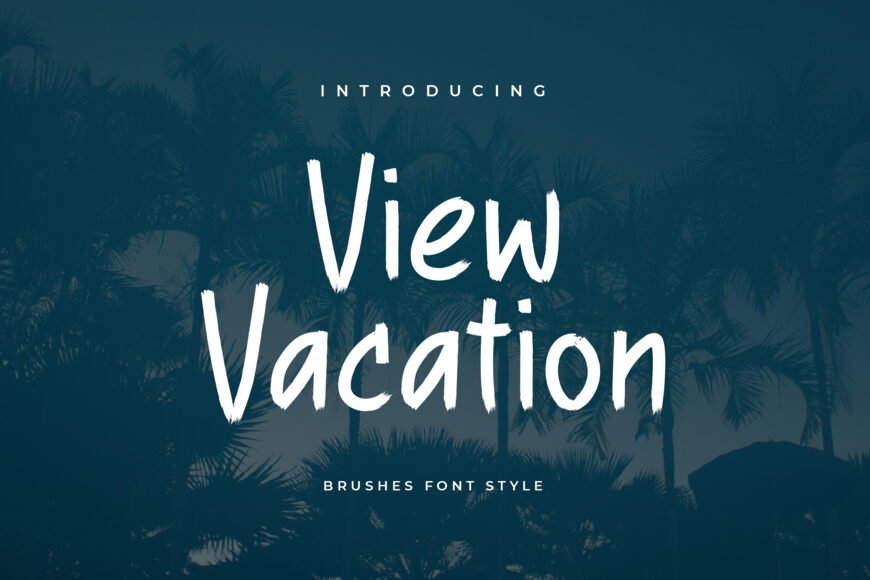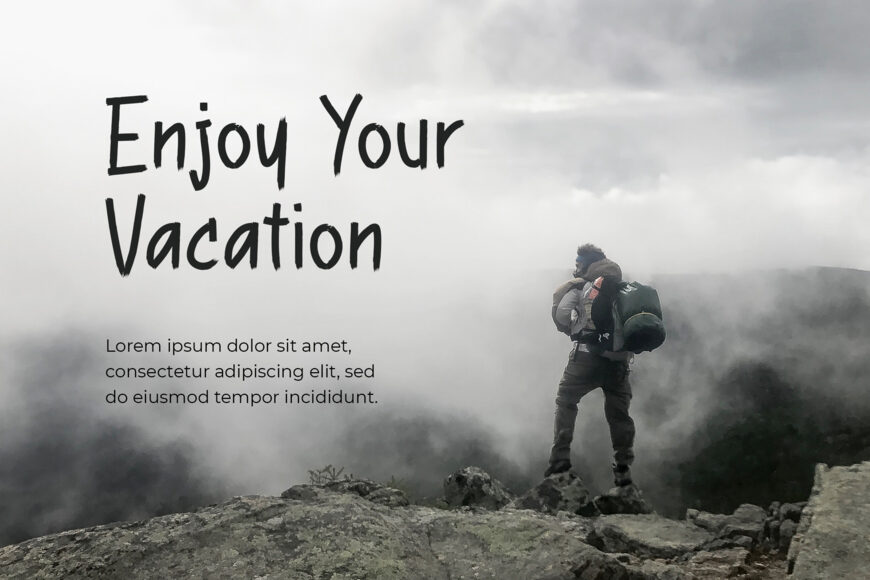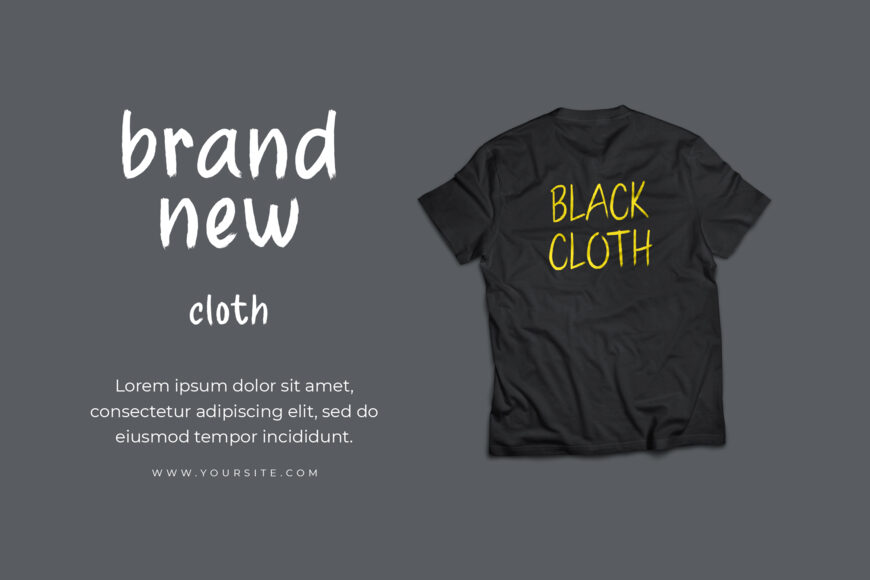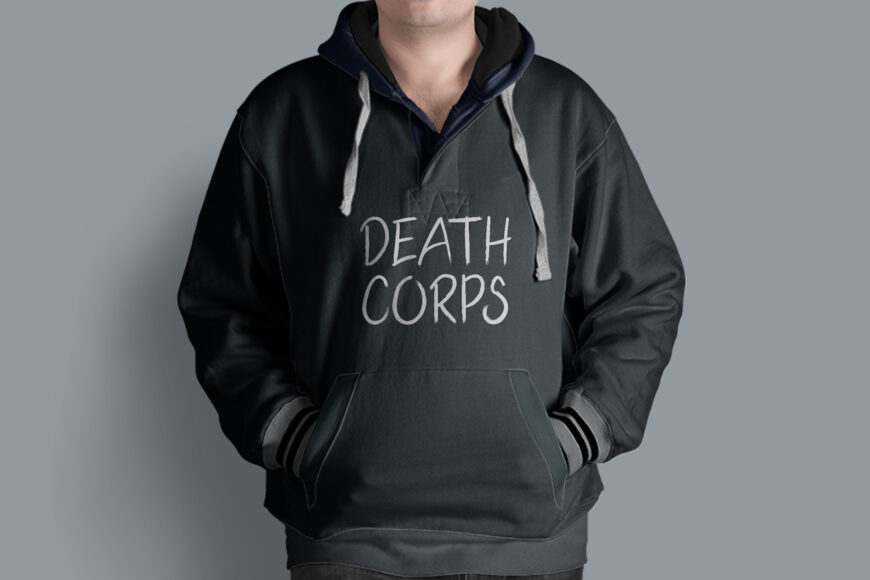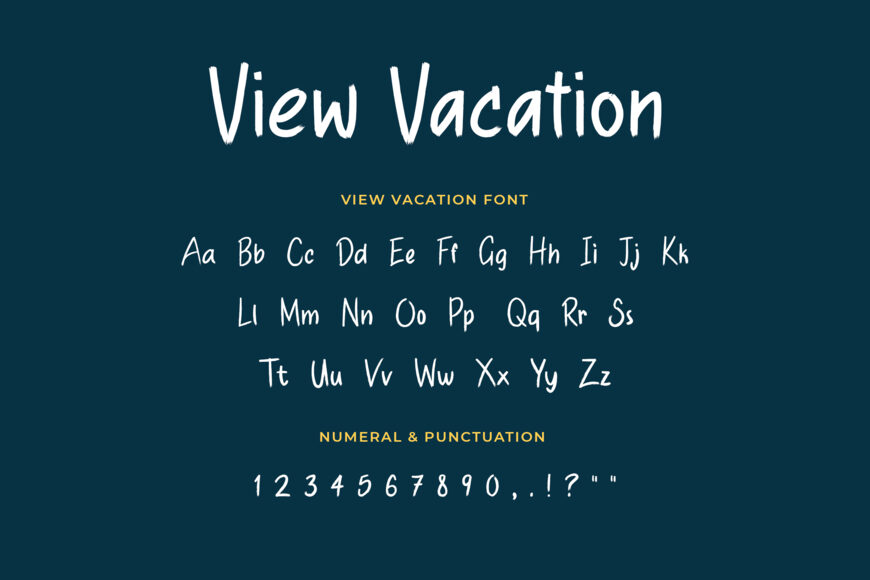
View Vacation is a brushed and cute handwritten font. Whether you’re looking for fonts for Instagram or calligraphy scripts for DIY projects, this font will turn any creative idea into a true piece of art!